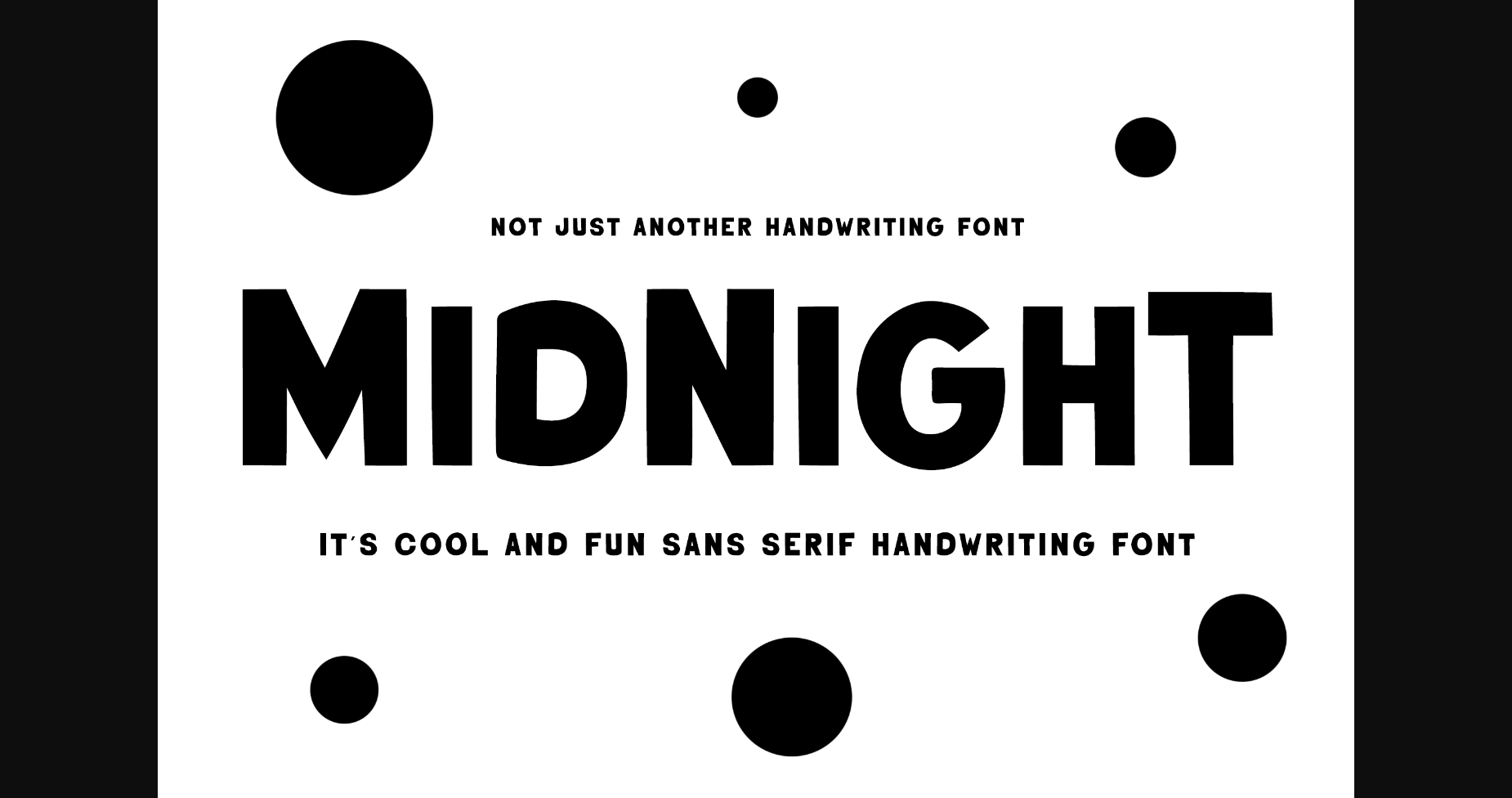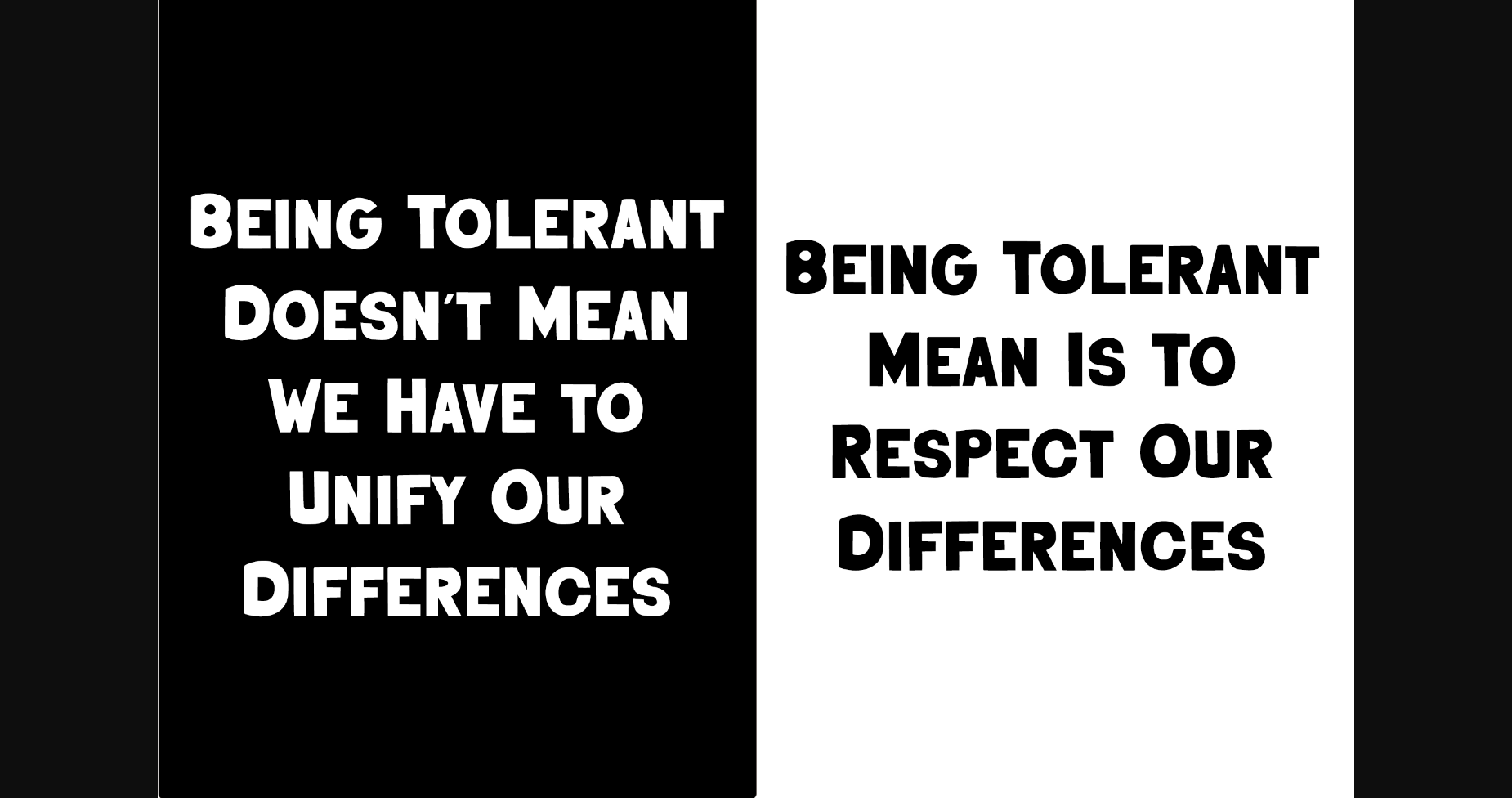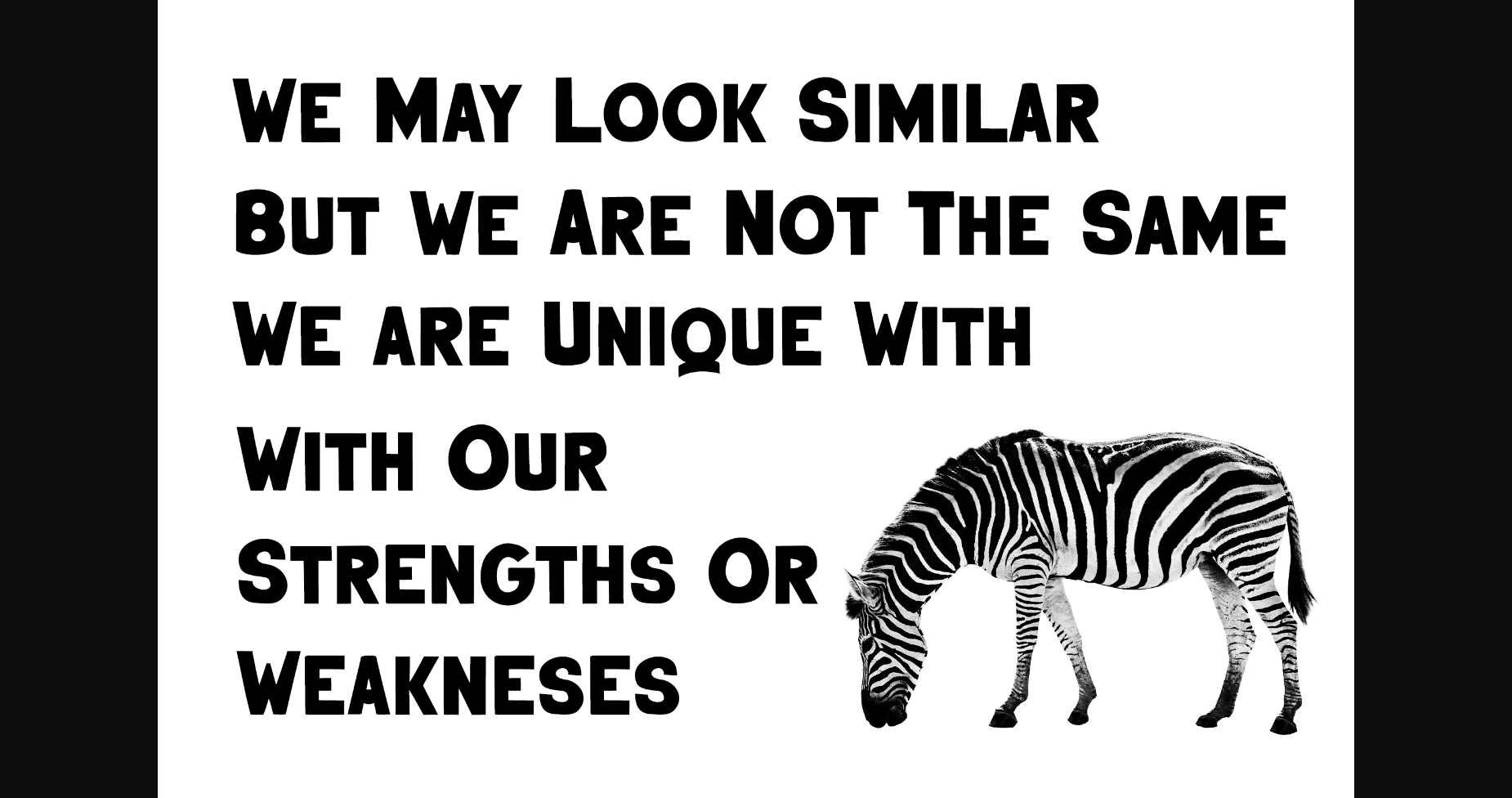
About Midnight Font
Midnight is a cool, bold and thick lettered sans serif font. It will elevate a wide range of crafting ideas, from cards, to branding, labels and much more.